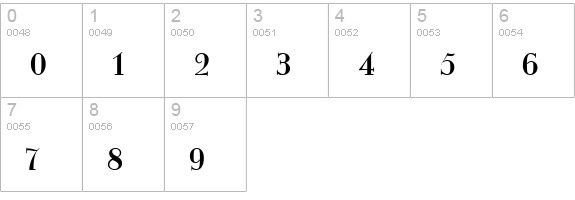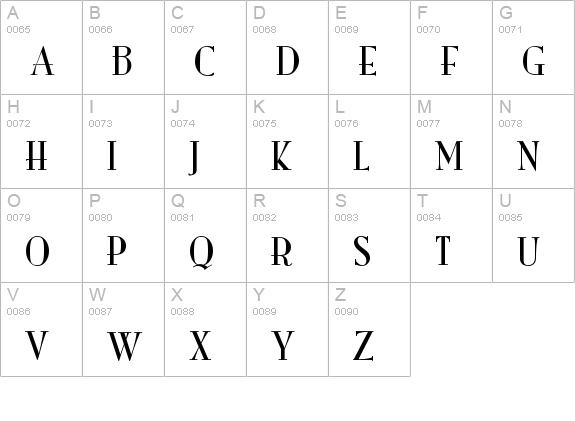
Monarch font is a modern and elegant typeface that exudes sophistication and style. With its sleek lines and graceful curves, Monarch is perfect for adding a touch of class to any design project. Whether you're creating a wedding invitation, a business card, or a website, this font is sure to make a statement. What's even better is that Monarch font is completely free to download at FontsMarket.com. That's right, you can elevate your designs with this beautiful typeface without spending a dime. Don't miss out on the opportunity to enhance your work with the timeless appeal of Monarch font. Download it now and let your creativity soar.